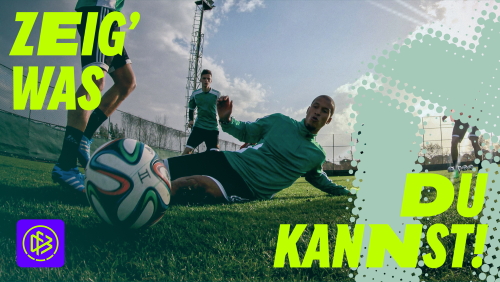
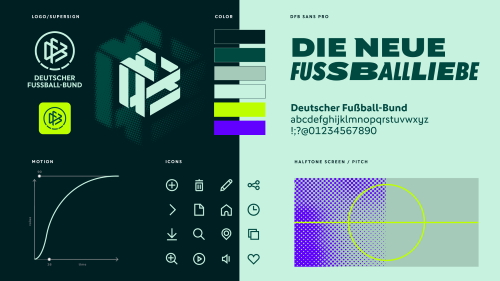
DFB Sans Pro Updated Font Family by Supertype
This is the new brand identity of the German Football Association.
- The new brand identity is intended to make the association's diverse tasks and content more visible. The rebranding, implemented by the design and branding agency Strichpunkt together with the German Football Association (DFB), replaces the previous design from 2015/2016, which was also the responsibility of Strichpunkt.
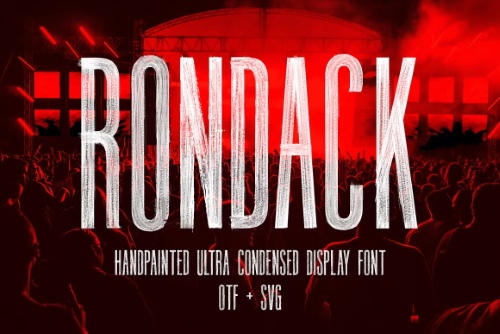
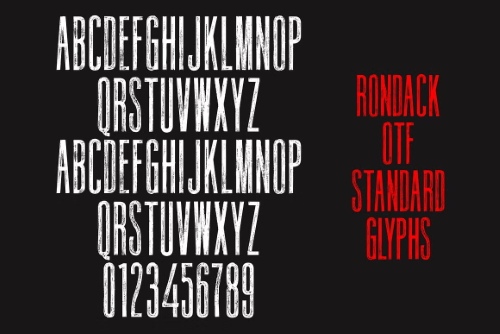
CM - Rondack SVG - Ultra Condensed Font 279538836
- Introducing Rondack, a stylish condensed hand painted SVG & OTF font. This sans serif font is super tall, making it a perfect display font for use in projects like posters, packaging, advertisements & movie titles. Enjoy the natural texture and transparency of the SVG font which makes an eye catching statement. Rondack includes OTF & SVG files for maximum usability and also include multilingual features.
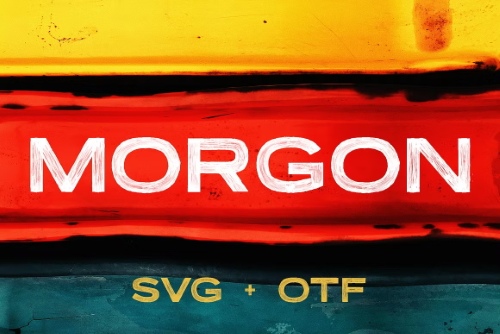
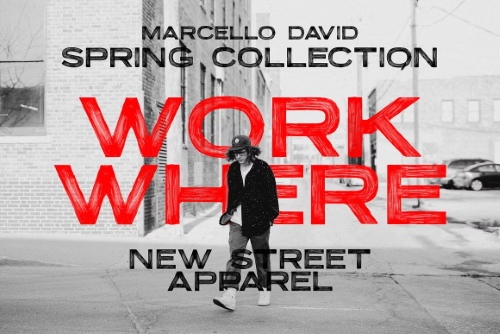
CM - Morgon - Textured SVG Display Font 279538851
- Morgon is a textured SVG display font. This expanded sans serif includes some handy alternate characters for creating more engaging typographic designs. Enjoy the bold strokes and big texture of the regular vector font, or add the unique transparency provided by the SVG version. Make your brand stand out today by choosing Moron SVG!
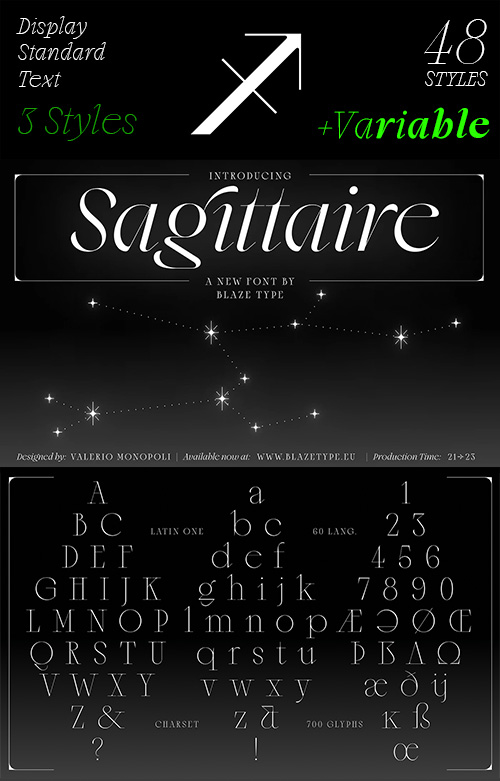
Sagittaire - 48 Styles + Variable Font Family v1.1
- Like the mythological arrow-slinging centaur, said to never miss the target he’s aiming at, Sagittaire is a hybrid creature: halfway humanist and nuanced, halfway raw and undomesticated, it traces a bewildering figure characterised by a high-waisted body with a seemingly unnatural distribution of widths an volumes. At its extremities, feather-like terminals bloom from orthogonal stems, flowing gracefully into sharp arrowheads that pierce the reader’s eye in the lightest cuts, only to gradually soften up across the 3 styles (Display, Standard, Text) for a total of 48 weights.
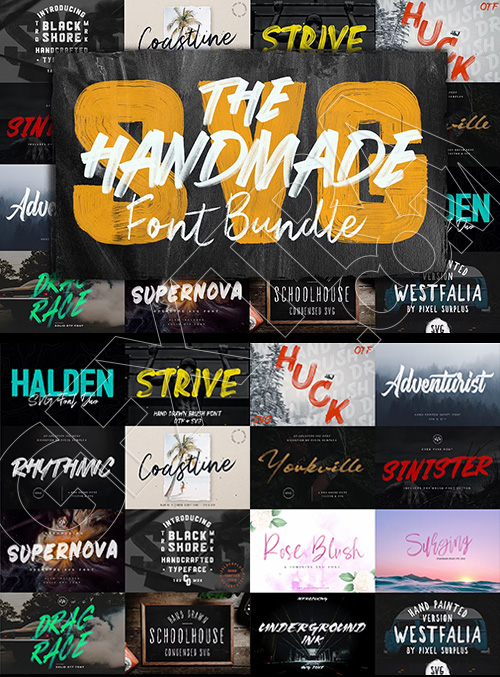
CM - The Handmade SVG Font Bundle 91684734
The Handmade SVG Font Bundle features
- Pick up a few of our best sellers like Halden, Strive & Coastline, along with some hidden gems like Blackshore, Yorkville & Westfalia. Add amazing texture to your designs with the real transparency and hand drawn brush strokes of SVG fonts. These fonts were created with a variety of mediums including acrylic paint, as well as various markers and brushes.
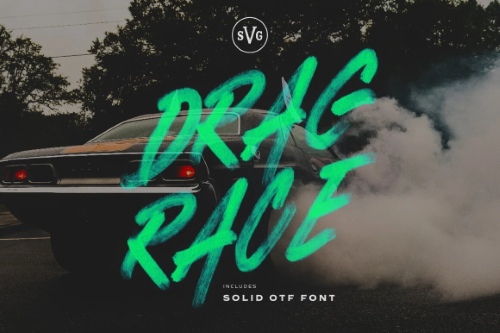
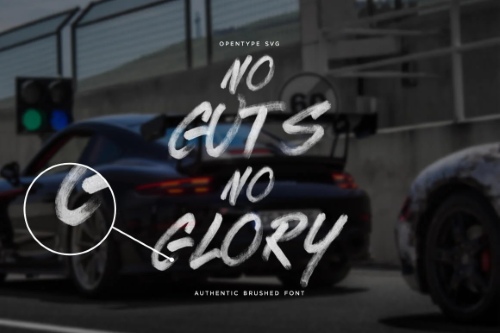
CM - Drag Race - SVG Marker Font 5976466
- Drag Race SVG is a new hand drawn SVG marker font. This aggressive, italic hand drawn font is perfect for use in action sports, athletics, automotive related projects. It features an attractive transparency maintained through the special process of creating and SVG font.
CM - Glyke - Grotesque Sans Serif 287413152
- Introducing Glyke, a Neo-Grotesque Sans Serif font that combines clean, modern lines with a warm and friendly feel. With 6 versatile weights and an extensive selection of alternates and ligatures, Glyke is perfect for adding a unique touch to your titles and logos. Ideal for both display and text sizes, this font excels in branding, web design, magazine, and more. Elevate your projects with Glyke and experience the perfect blend of fun and sophistication.
CM - Matrice - Font Family 3199240
- Matrice is a sans serif (Semi Extended) display font family in 8 weights plus matching natural italics. support 75+ Languanges (Latin Based) influenced by the grotesk typefaces developed in the early 20th century, perfect for branding (Identity), logotype, headline text, and caption.
Mouzambik - Condensed Headline 6 Styles New v2.0
A bold, condensed sans-serif featuring three unique styles, perfect
for high-impact headlines, branding, and modern digital interfaces.
- Mouzambik is a bold, condensed sans-serif family that masterfully blends geometric precision with an intricate personality. Featuring three distinct styles—Regular, Inktrap, and Smooth—along with matching italics, it is meticulously crafted for maximum clarity at any scale. With a wealth of creative ligatures and alternates, Mouzambik brings a sharp, contemporary edge to everything from high-impact billboards and magazines to refined branding and UI/UX designs. It is the ultimate choice for creators seeking a professional, versatile typeface that ensures every project looks modern and memorable.
- Merca is a sharply condensed typeface built for bold visual impact. With its narrow proportions, tall stance, and uncompromising vertical structure, Merca delivers a commanding headline presence while maintaining clean readability. Designed for brands that need to speak direct, strong, and unapologetically, Merca pushes a powerful typographic tone, assertive in posture, precise in rhythm, and visually dominant in any layout. The minimal contrast and compact width allow maximum messaging in limited space, making every word feel urgent, modern, and high-impact.